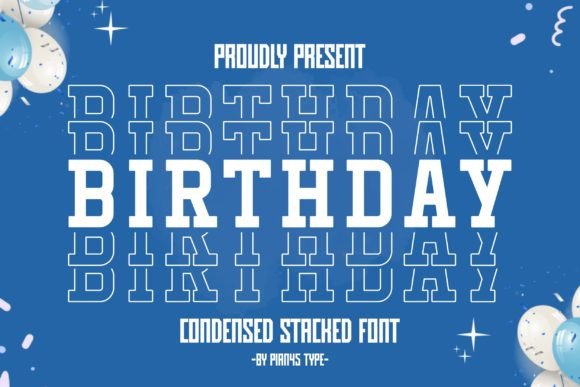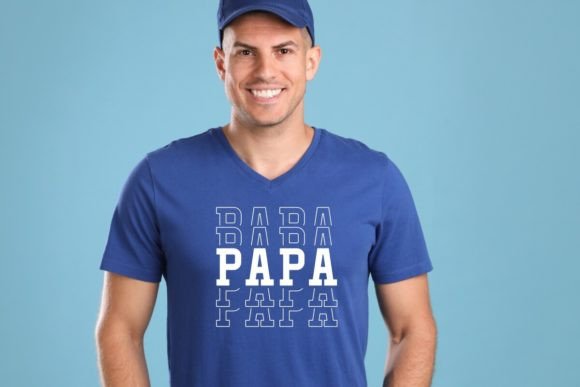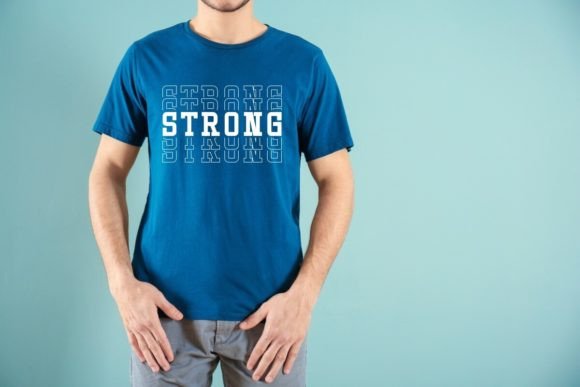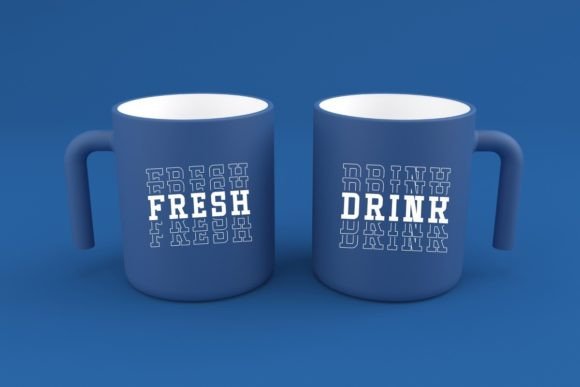
Birthday Stacked Font
Birthday Stacked is an elegant and captivating condensed stacked slab serif font. With its refined and stylish appearance, this font brings a sophisticated and charming touch to your design. Perfect for decorative projects, backgrounds, t-shirts, mugs, tote bags and pillows.